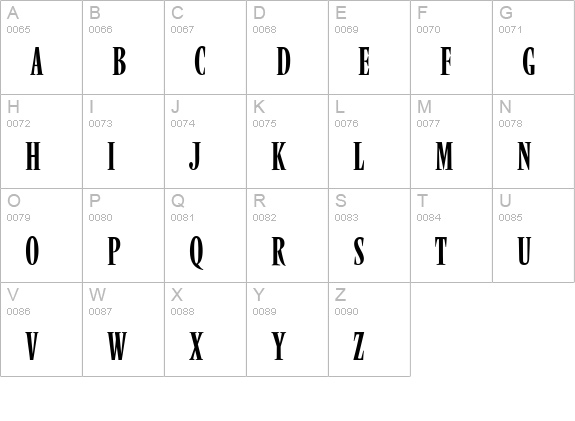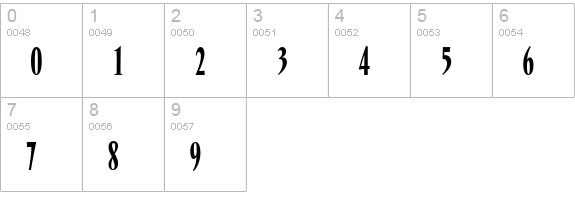
V691-Roman-Cd-Regular is the standard, neutral variant in the V691 typeface family \xE2\x80\x94 well suited to general body text, paragraphs, and standard typographic work.
V691-Roman-Cd-Regular is a versatile and elegant font that combines classic Roman styling with a contemporary twist. Its clean lines and balanced proportions make it perfect for a wide range of design projects, from branding to editorial design. The font exudes a sense of sophistication and professionalism, while remaining highly readable and visually appealing. What makes V691-Roman-Cd-Regular even more appealing is that it is available for free download at FontsMarket.com. This means you can easily access this high-quality font without any cost, making it a valuable addition to your font library. Whether you are a graphic designer, a student, or a hobbyist looking to enhance your projects, V691-Roman-Cd-Regular is a fantastic choice that combines style, versatility, and affordability.